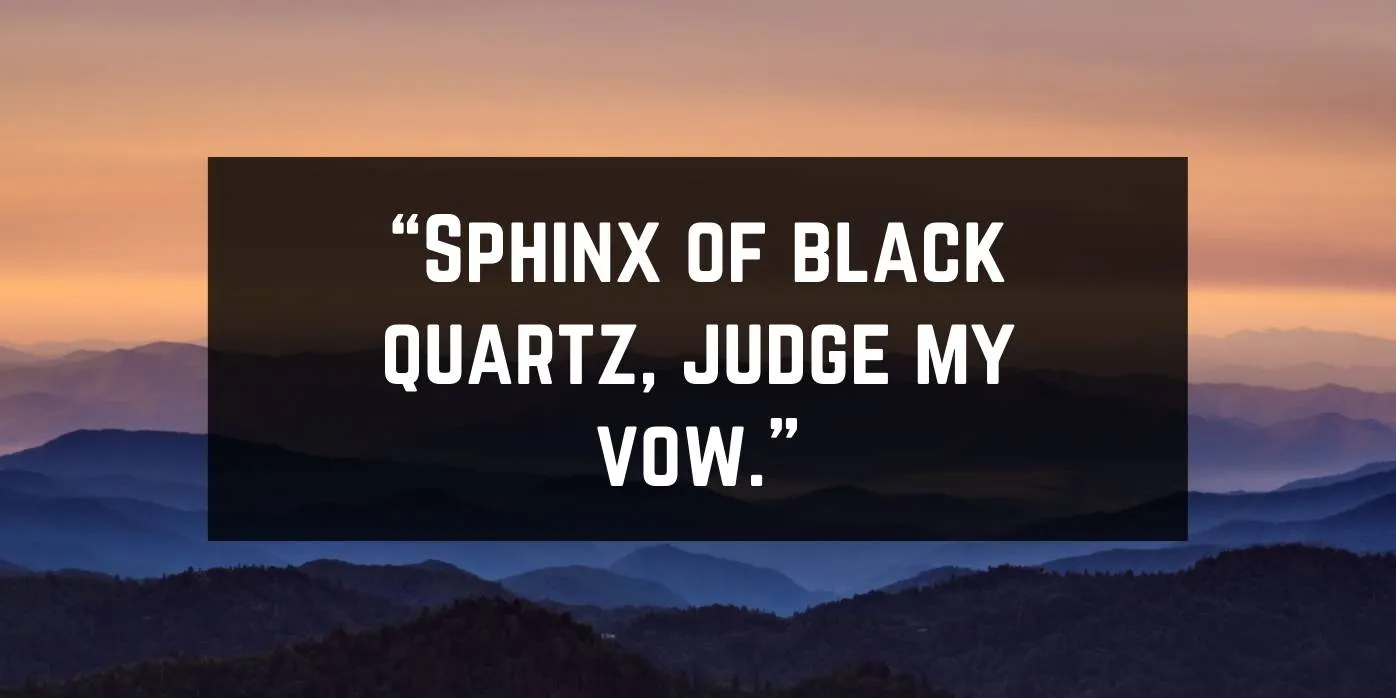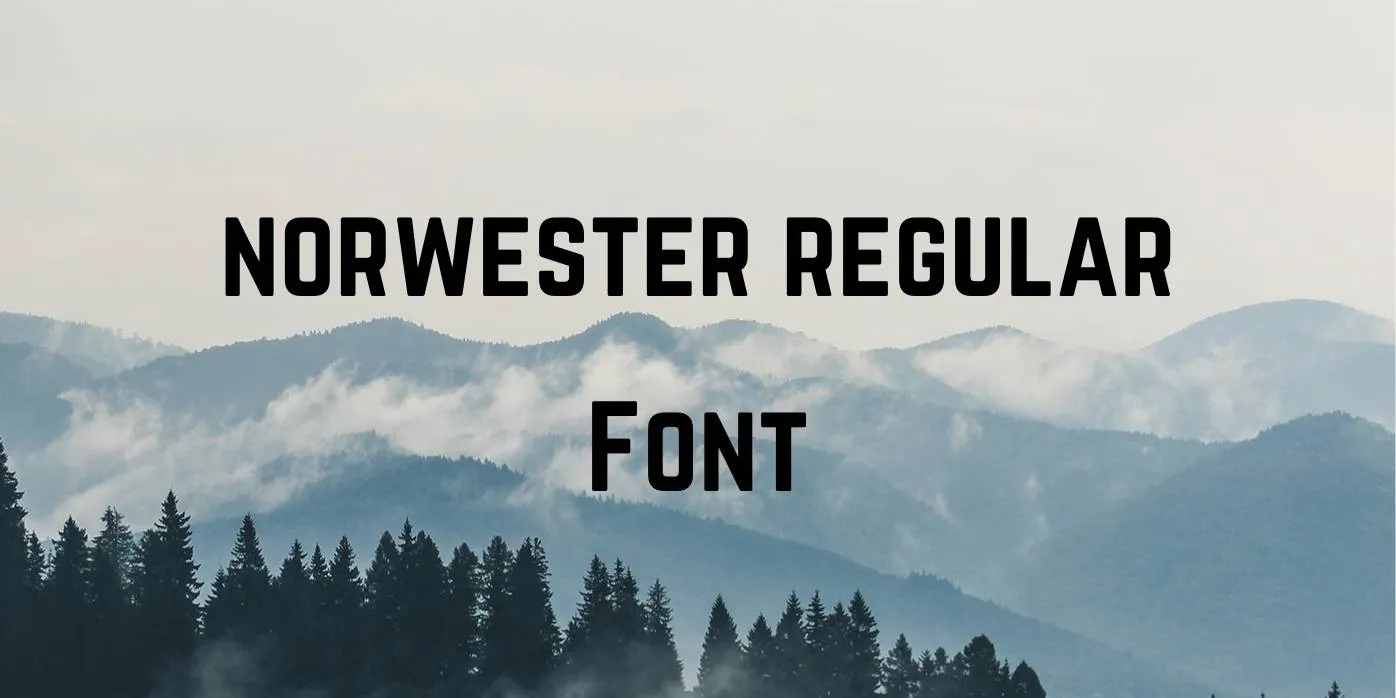
Norwester Regular Font
Here, we are going to introduce a new classic typeface that is known by the name Norwester Regular Font. It belongs to the Sans Serif font family. The original designer of this typeface was Jamie Wilson. This marvelous font has a very stylish look.
It is best suited for headlines, titles, and logos. This typeface can be easily accessed by everyone. And it’s a great alternative to the popular helvetica font with the same features. This typeface includes different text-based styles.